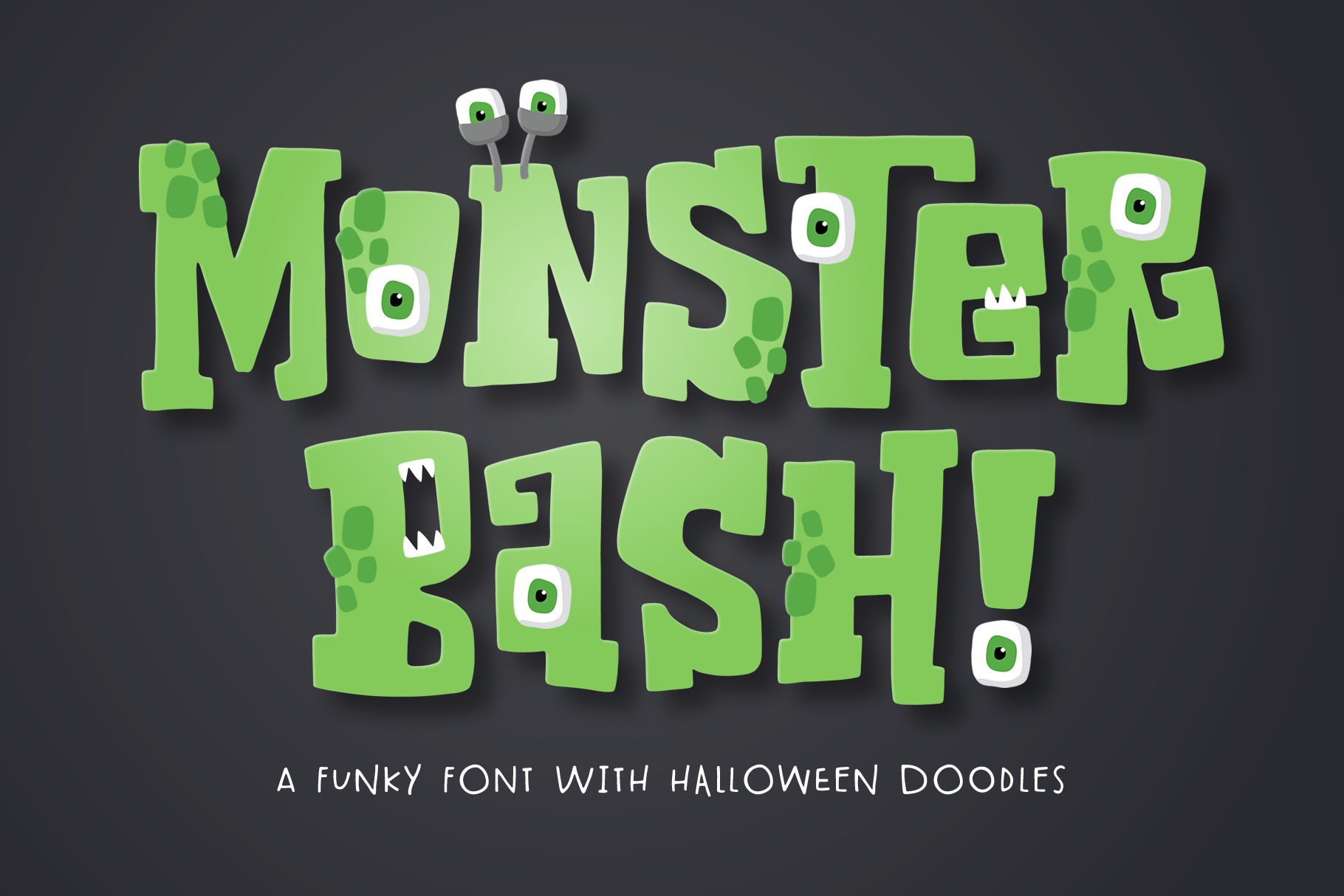
Monster Bash is a bold and blocky slab serif font that comes with a bunch of cute Halloween doodles. In programs that support Open Type features, Monster Bash will automatically create interlocking characters. Use Monster Bash alt (and the accompanying font menu) in programs without Open Type features to find and choose which ligatures you want to include.